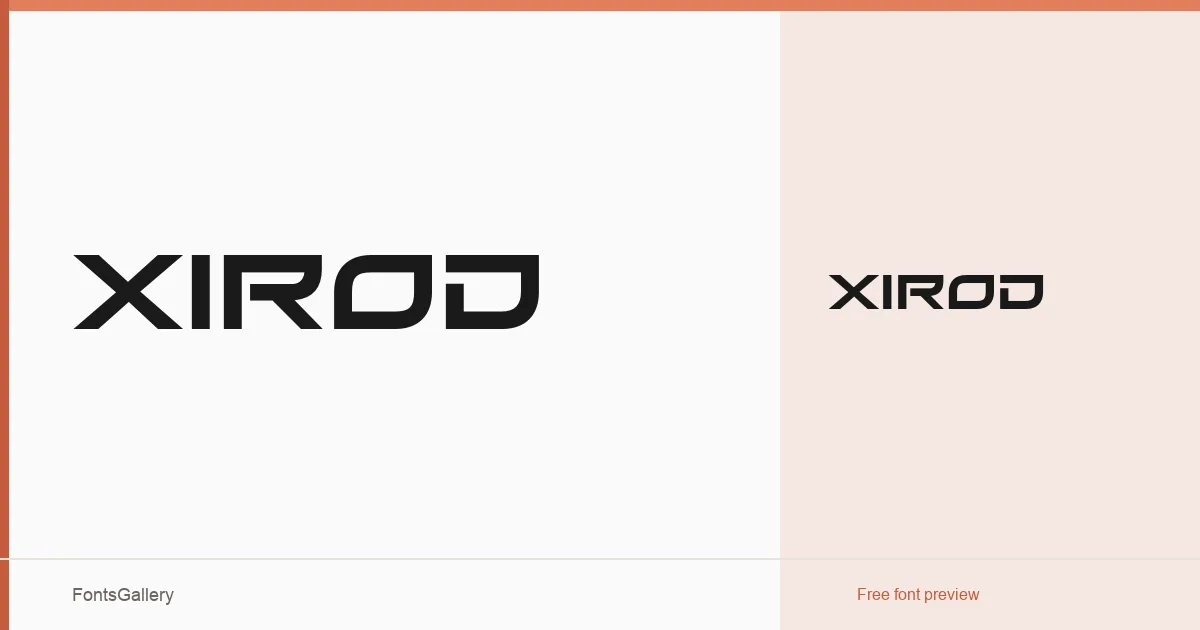
About Xirod Font
There is a hard-edged, machine-cut quality to these letterforms — angular constructions that read less like typography drawn by hand and more like something etched into a control panel. Released in 2024 under CC0 terms, this single-weight display face comes from Ray Larabie of Typodermicfonts, a foundry with a long reputation for pushing display type into unconventional territory. The Latin character set is rendered in OTF format, tight and uncompromising in its geometry.
This is a bold, futuristic display design — the kind of face that carries conviction at large sizes without needing weight variation to do it. The single Regular cut is intentional in its restraint; every character leans into a modern, industrial mood that suits headlines and identities far better than running text. The forms feel constructed rather than written, which gives them a consistency that holds up well whether set large on a poster or traced into a vector logo.
It earns its place in branding, headline settings, logo work, posters, and T-shirt design — anywhere a futuristic edge is the point rather than an accident. For body copy or secondary text, it pairs naturally with the clean neutrality of Helvetica or Alexandria, while Aresink, Bizantheum, and Audex offer display-to-display combinations when you want to build a hierarchy entirely within a bold, modern register.